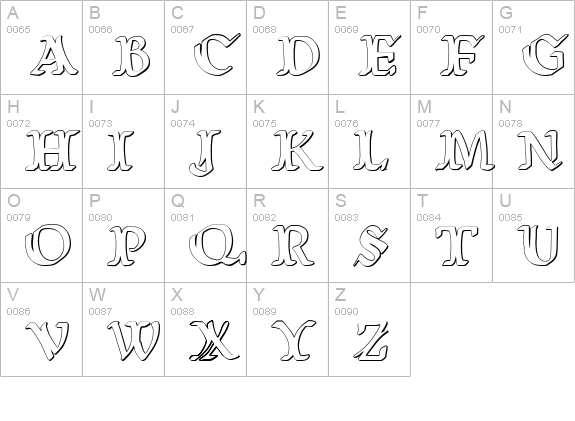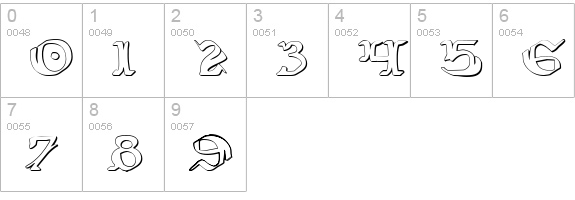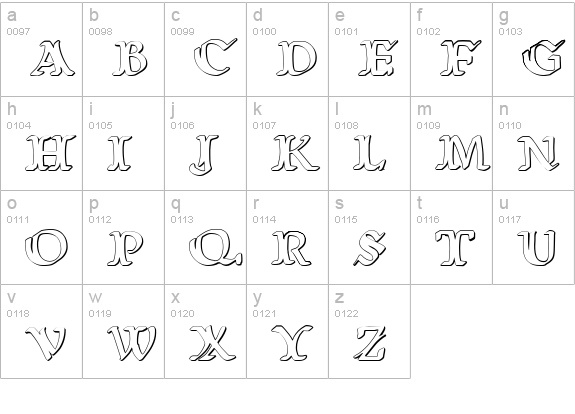
Wars of Asgard 3D Font Details
Immersive and powerful, the Wars of Asgard 3D font encapsulates the epic battles and mythical realms of ancient Norse mythology. With its intricate detailing and dynamic 3D effect, this font brings a sense of grandeur and strength to any design project. Each letter exudes a fierce energy, capturing the essence of warfare and valor. Best of all, the Wars of Asgard 3D font is available for free download at FontsMarket.com. This means that you can easily add this striking font to your collection without any cost. Whether you're working on a poster, logo, or digital artwork, the Wars of Asgard 3D font will elevate your designs to new heights. Embrace the spirit of the Norse gods and warriors with this captivating font today!